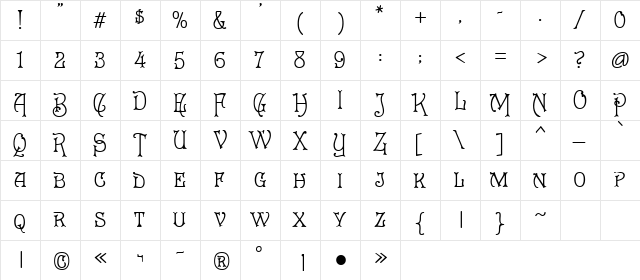
Le Grand Regular
| Foundry | Gophmann A.L. & Unknow autor |
| Designer | Gophmann A.L. & Unknow autor |
Design Context for Le Grand Typeface
Le Grand is a composed and adaptable typeface that performs quietly and consistently across a wide range of design contexts.